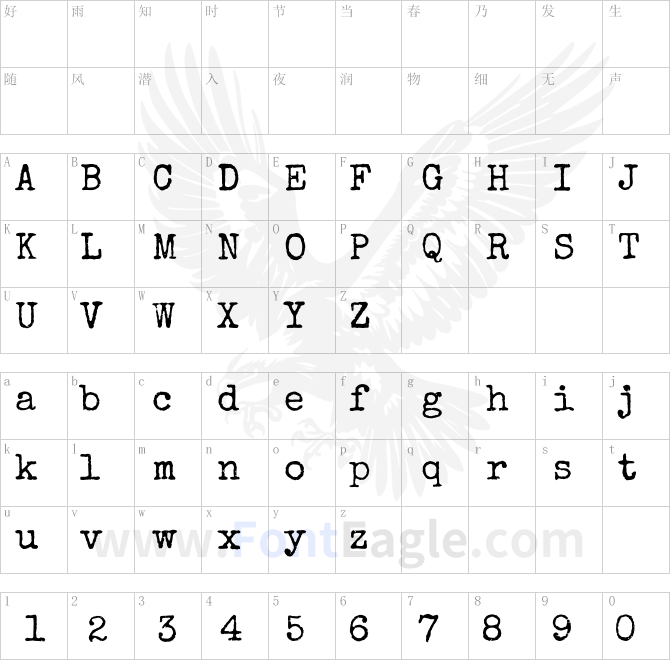
- Font name:Special Elite
- Font Subfamily ID:Astigmatic(AOETI): Special Elite: 2011
- Font Full Name:Special Elite
- Postscript:SpecialElite-Regular